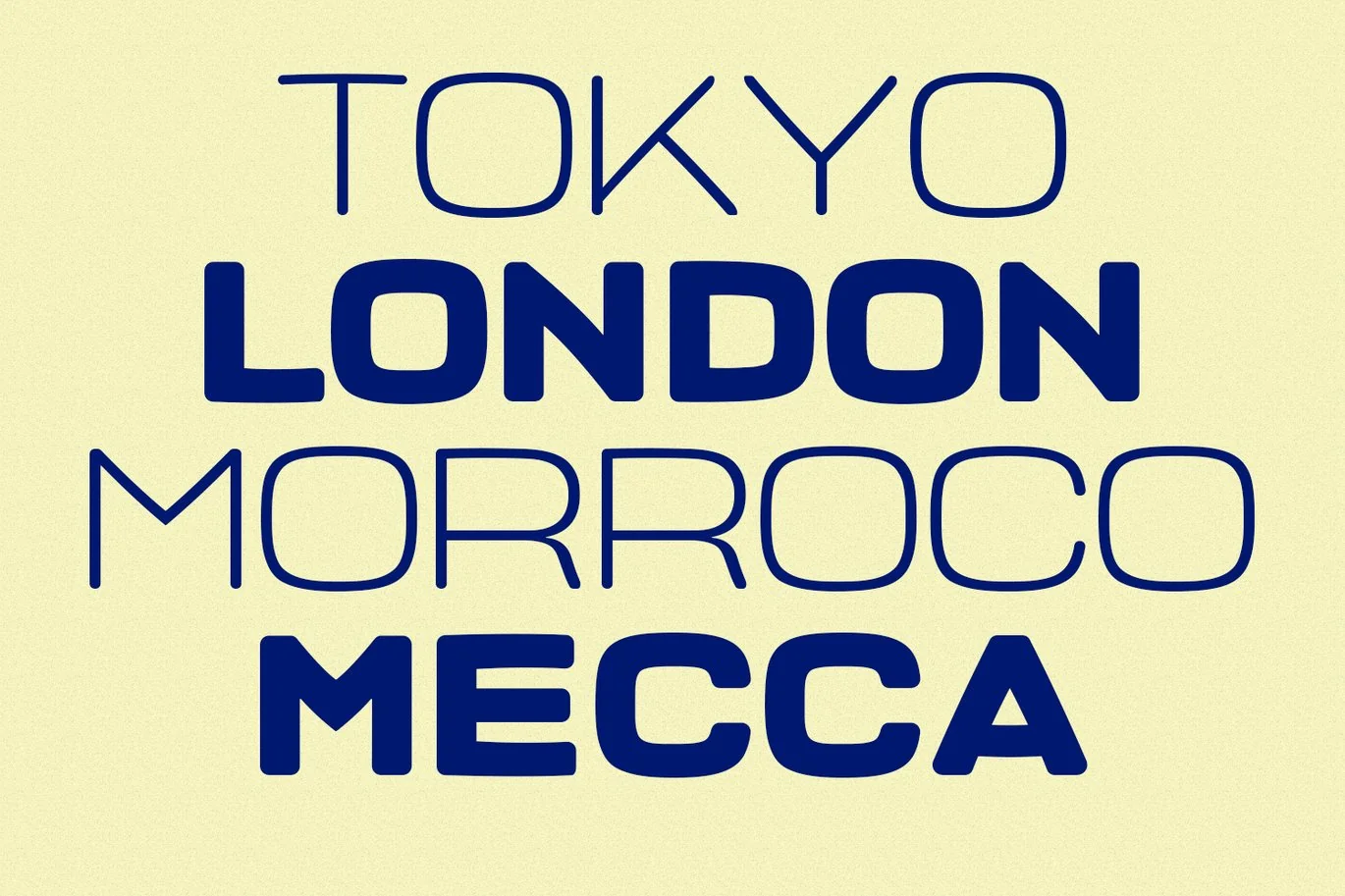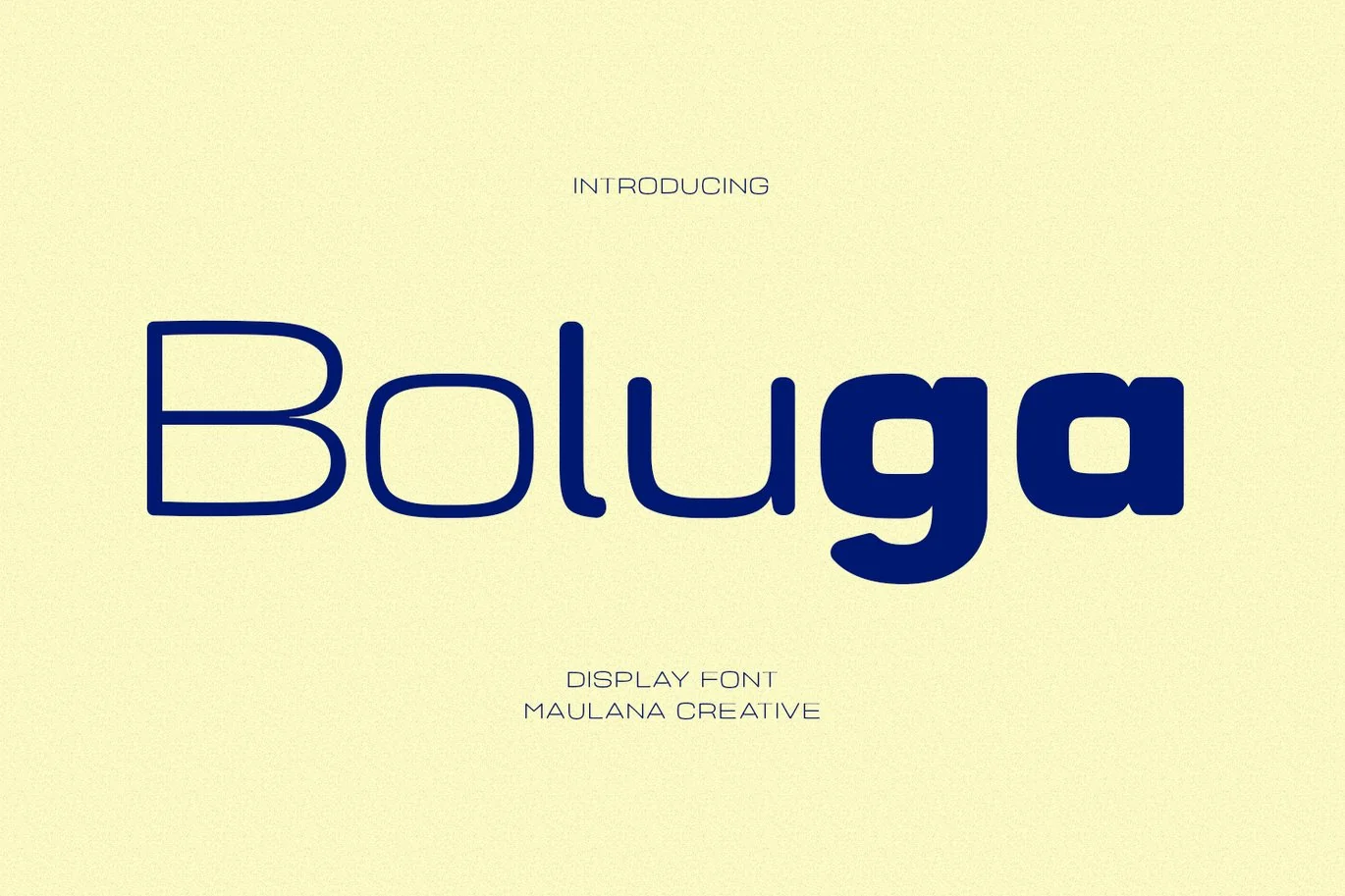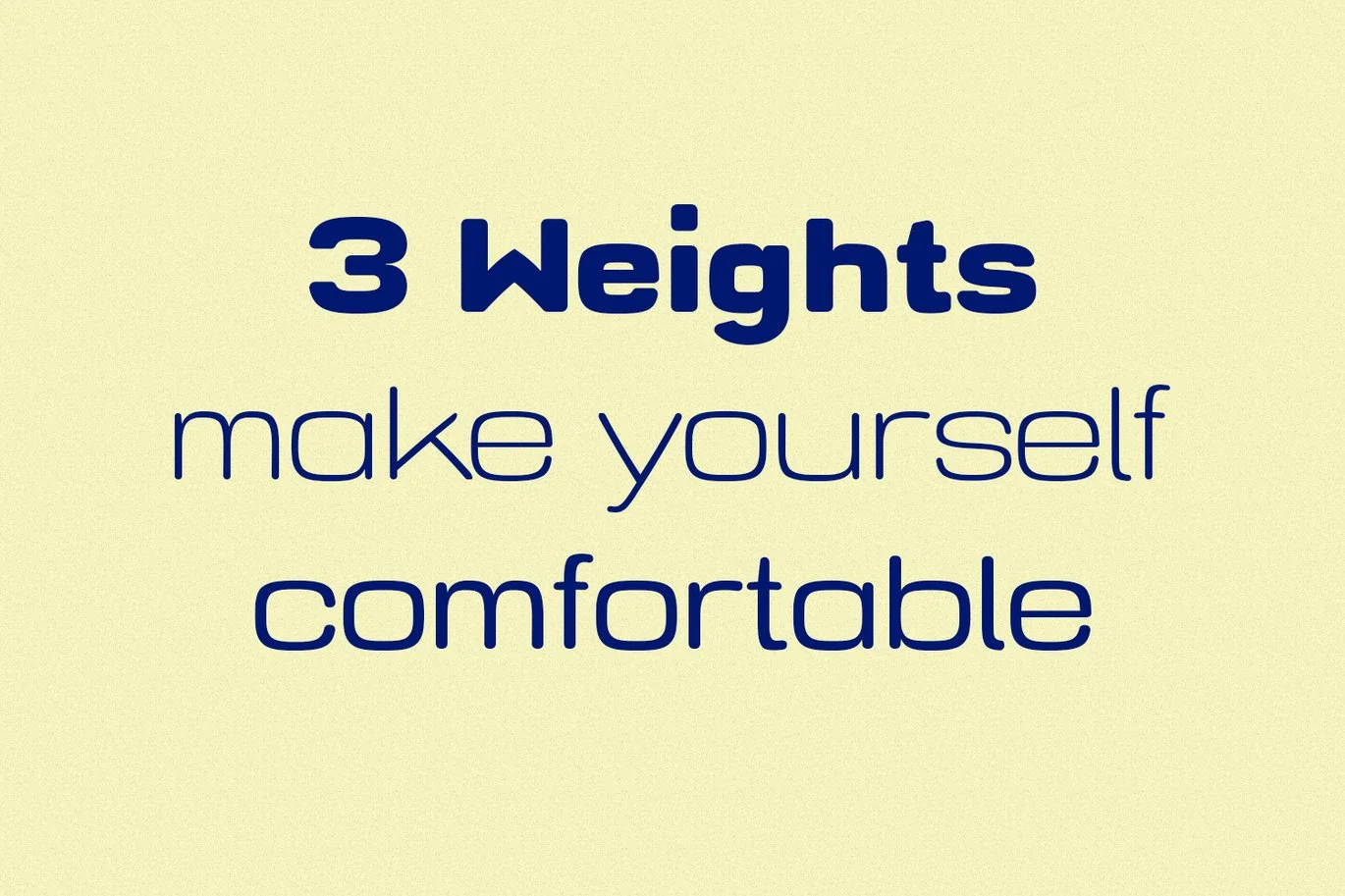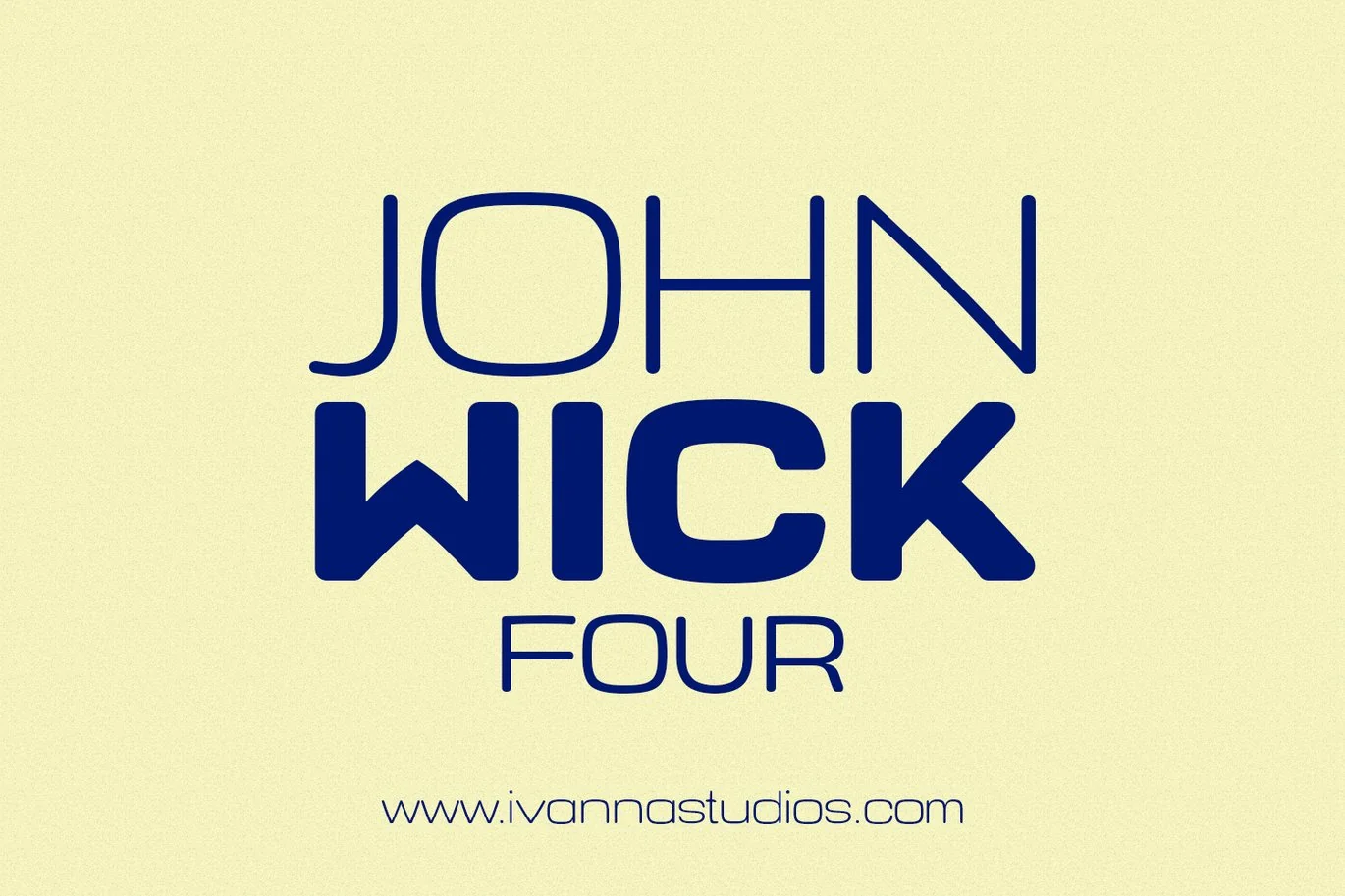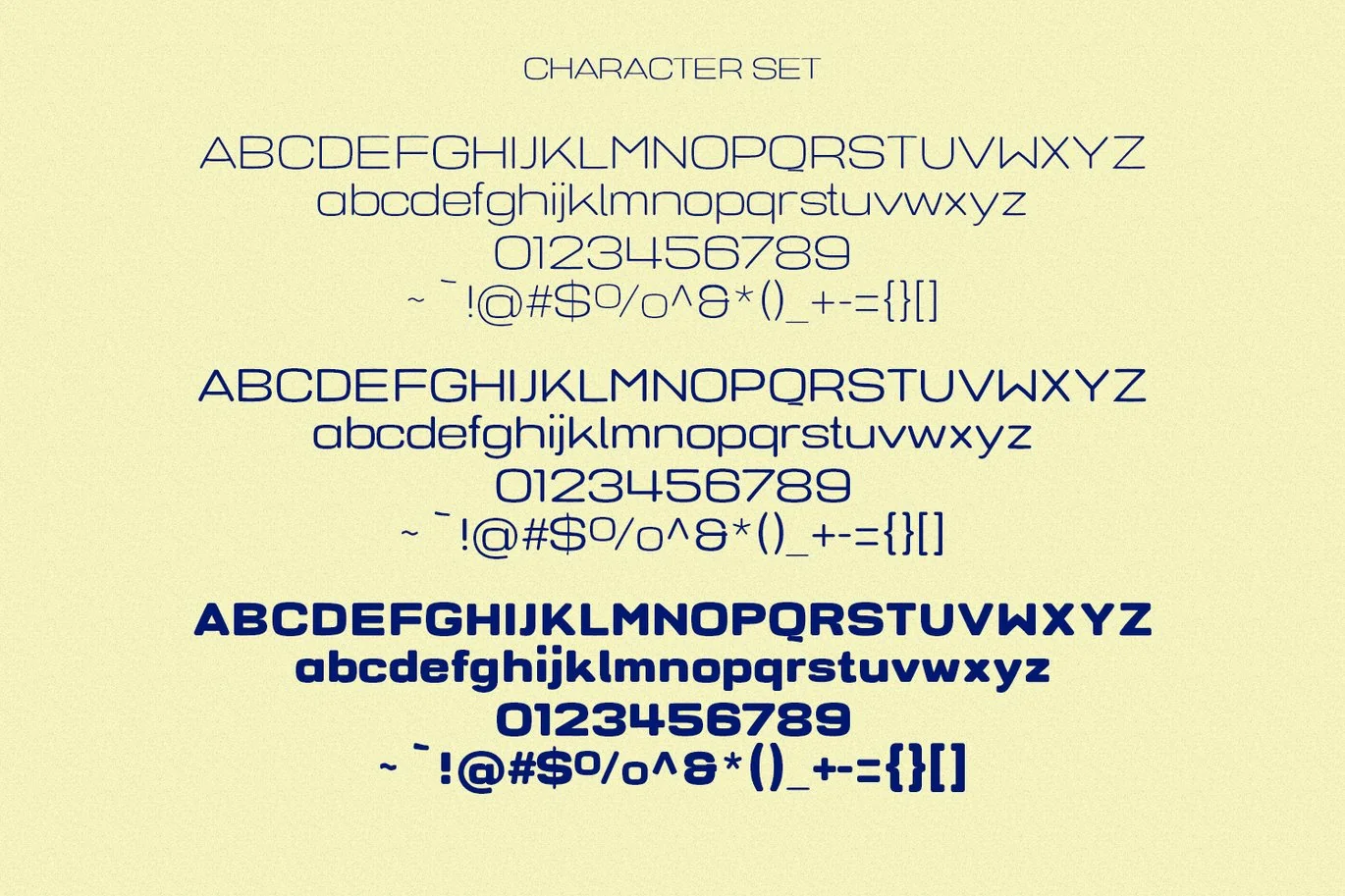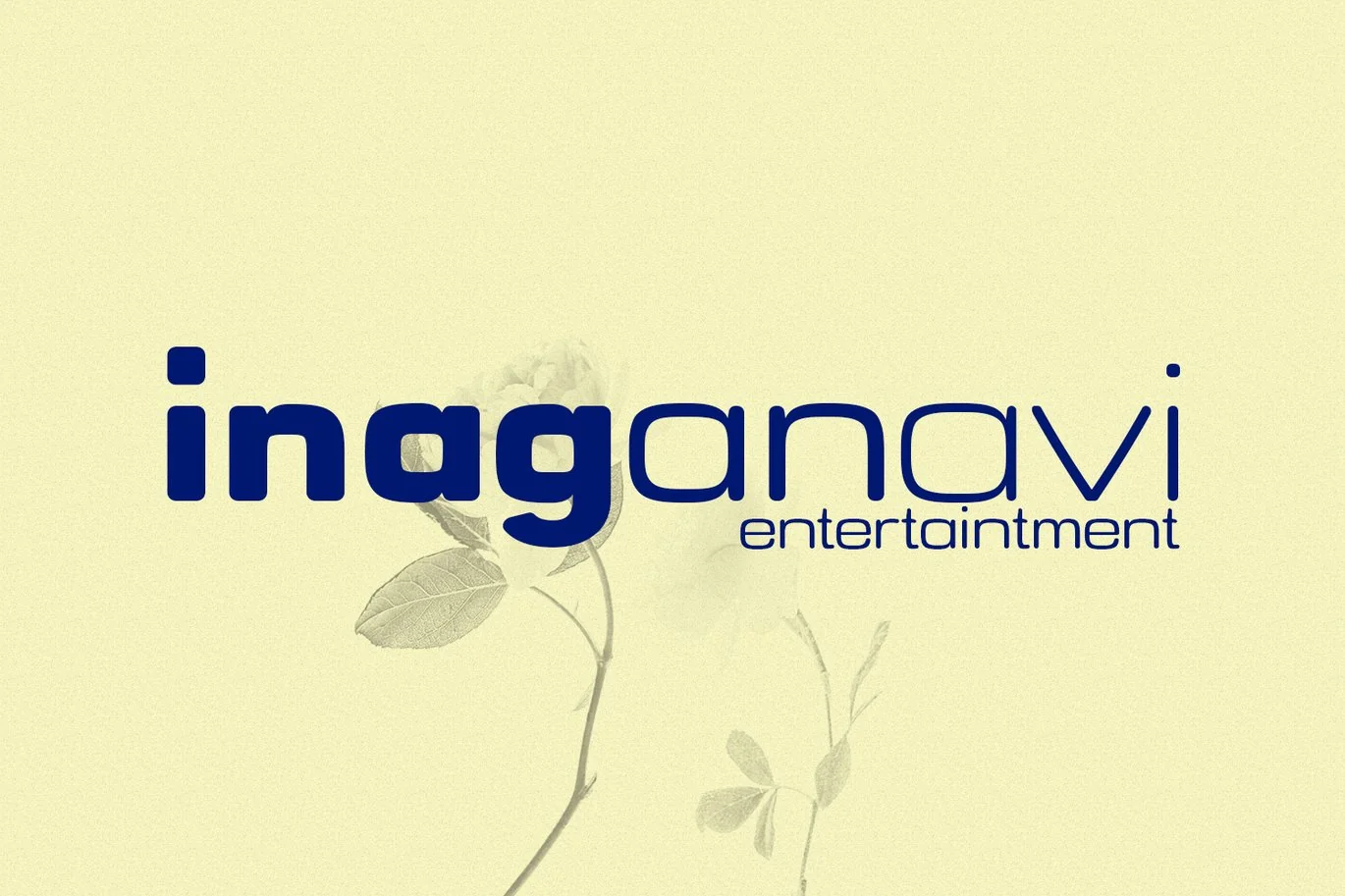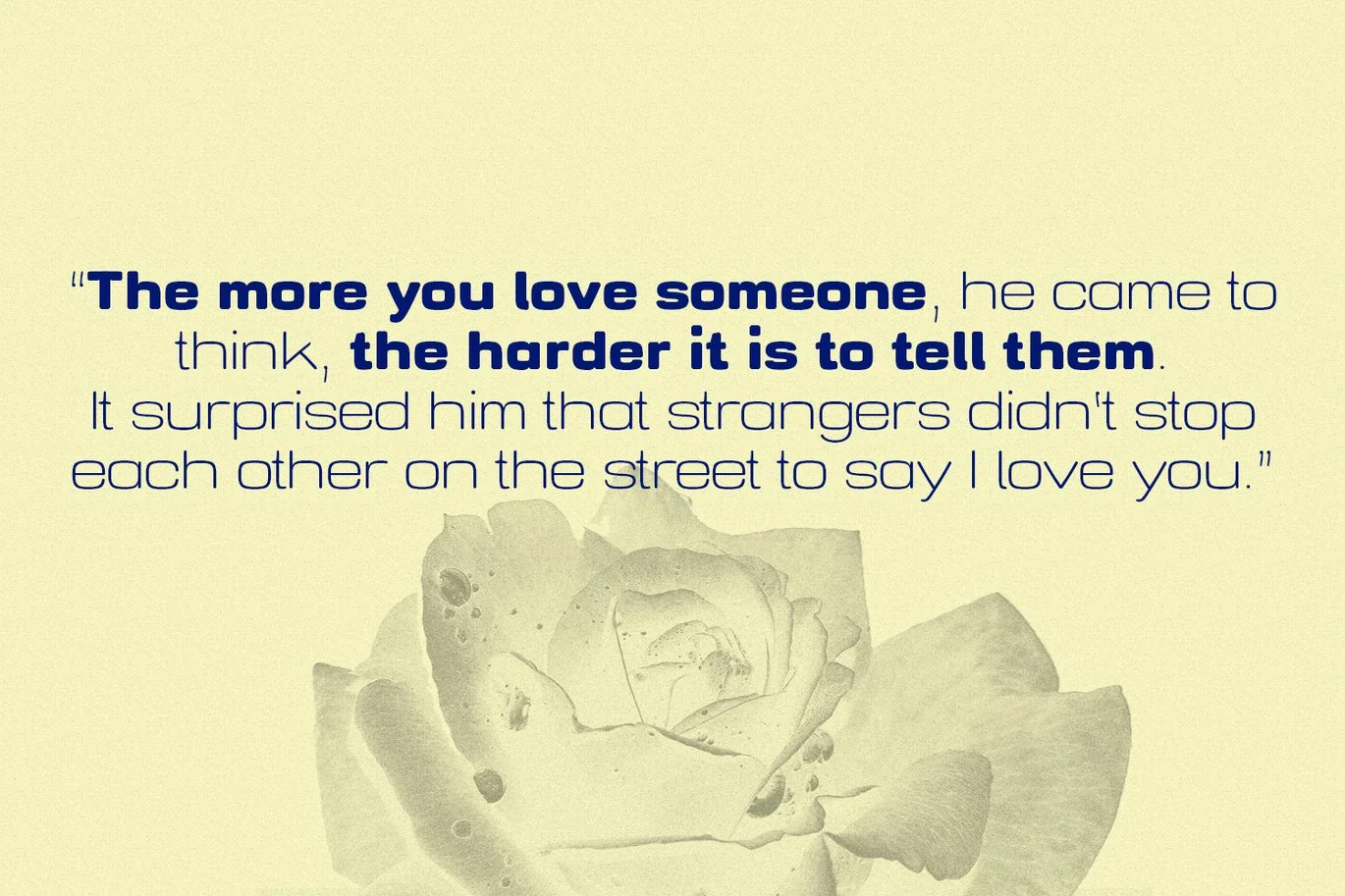
Boluga Display Font
Boluga is a 3 weights style inspired by Eurostile history Sans font. Light regular and Bold stroke, fun character with a bit of ligatures and alternates. To give you an extra creative work. Boluga font support multilingual more than 100+ language. This font is good for logo design, Social media, Movie Titles, Books Titles, a short text even a long text letter and good for your secondary text font with script or serif. Make a stunning work with Boluga font.
- Boluga Light
- Boluga Regular
- Boluga Bold